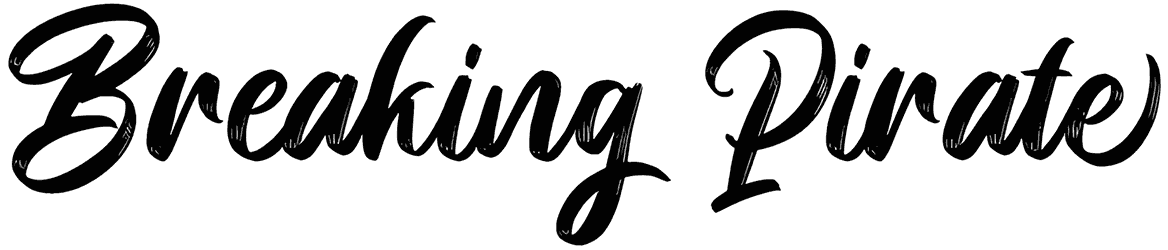
Breaking Pirate Font
Breaking Pirate is a script brush font that is both playful and stylish. It’s a great option if you want to add some upbeat energy to your typography. This pirate font has a lovely, hand-drawn quality, which makes it perfect for wedding and greeting cards, banners, flyers, and more.